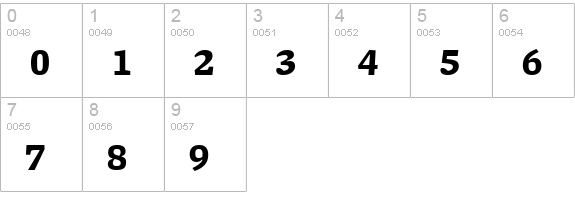
FreightMicro BlackSC is a modern and versatile font that is perfect for various design projects. With its bold and sleek appearance, this typeface exudes a sense of strength and professionalism. The free FreightMicro BlackSC font is ideal for headlines, logos, posters, and any other creative design you can imagine. Whether you are working on a branding project or crafting eye-catching visuals, this font is sure to make a statement. You can download the FreightMicro BlackSC font for free at FontsMarket.com and elevate your designs with this stylish and impactful typeface.